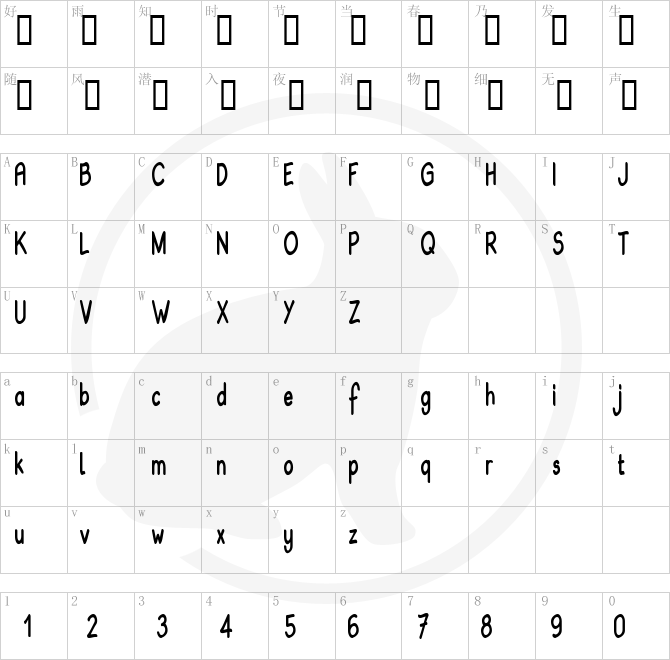
- Font Name:Babiole
Babiole-Narrow.ttf is a very beautiful artistic font, Babiole-Narrow.ttf is widely used in the design and printing of various books and pictures,Babiole-Narrow.ttf has a strong visual impact,Babiole-Narrow.ttf is a commonly used font in newspapers, magazines and books, and is used in posters, e-commerce Poster design, store design, logo design, font design and other fields.Babiole-Narrow.